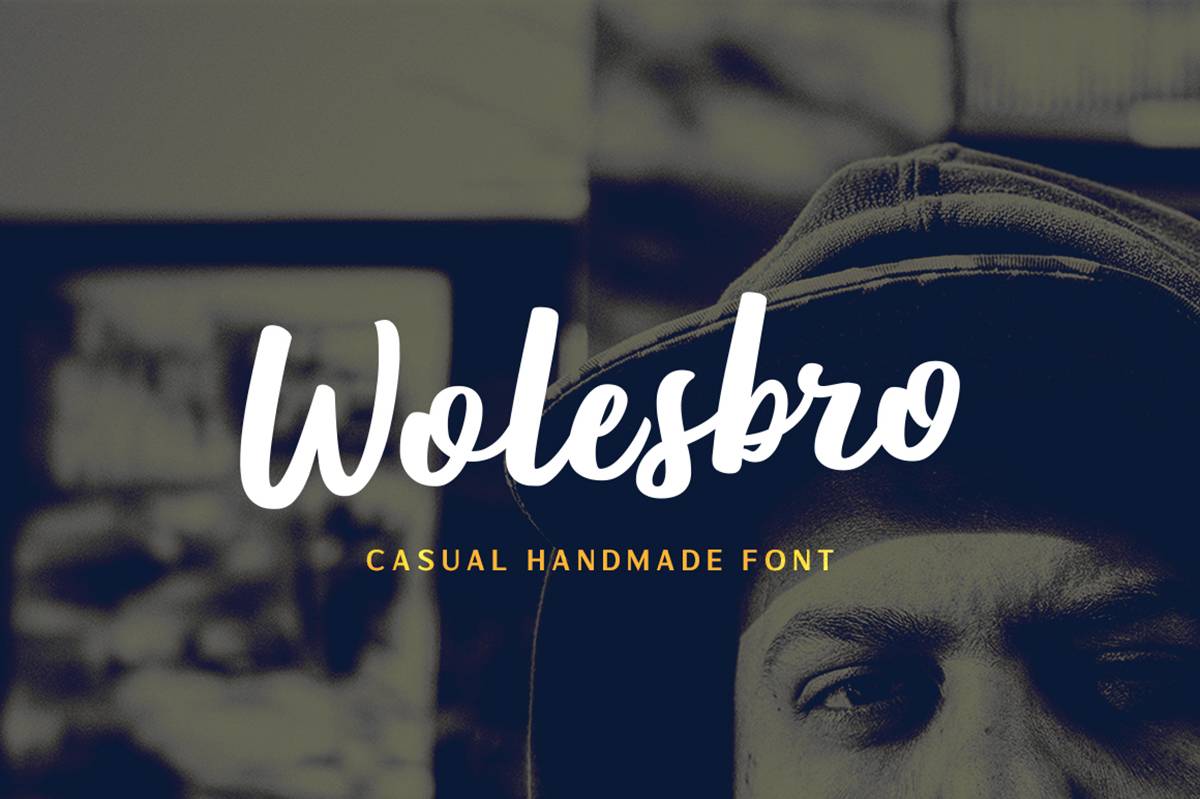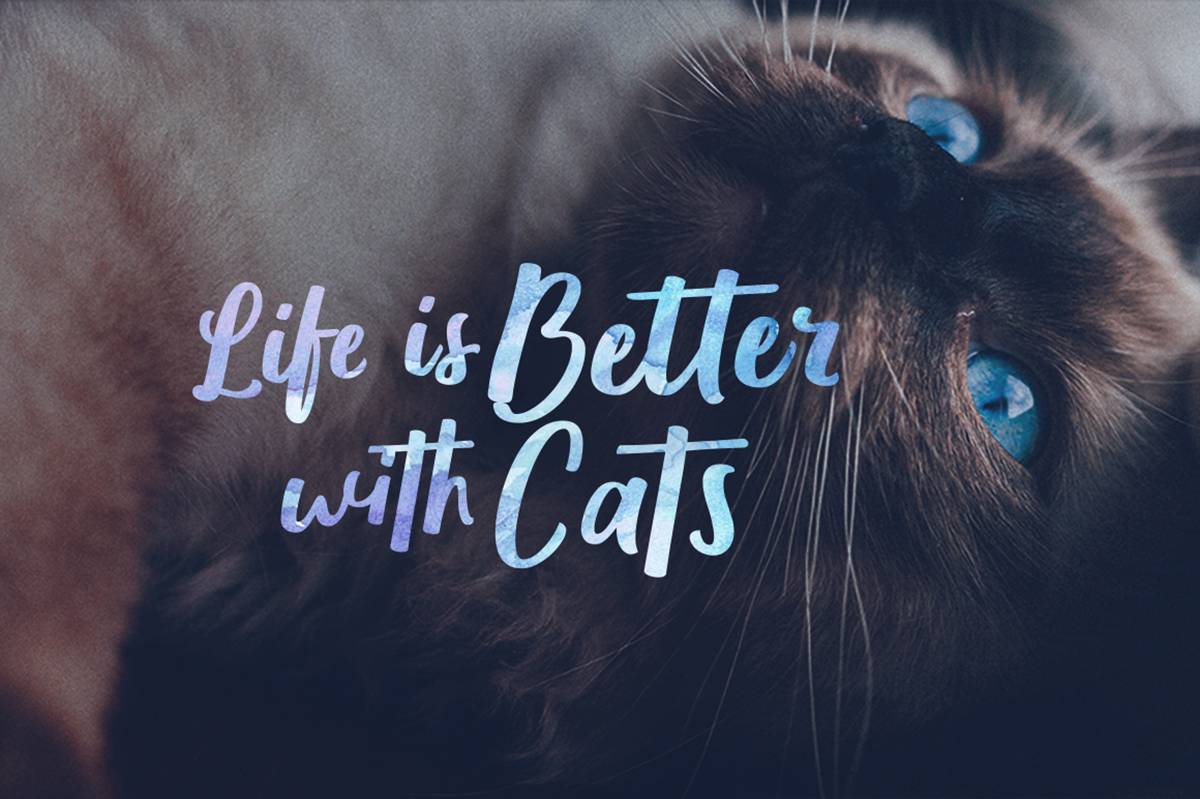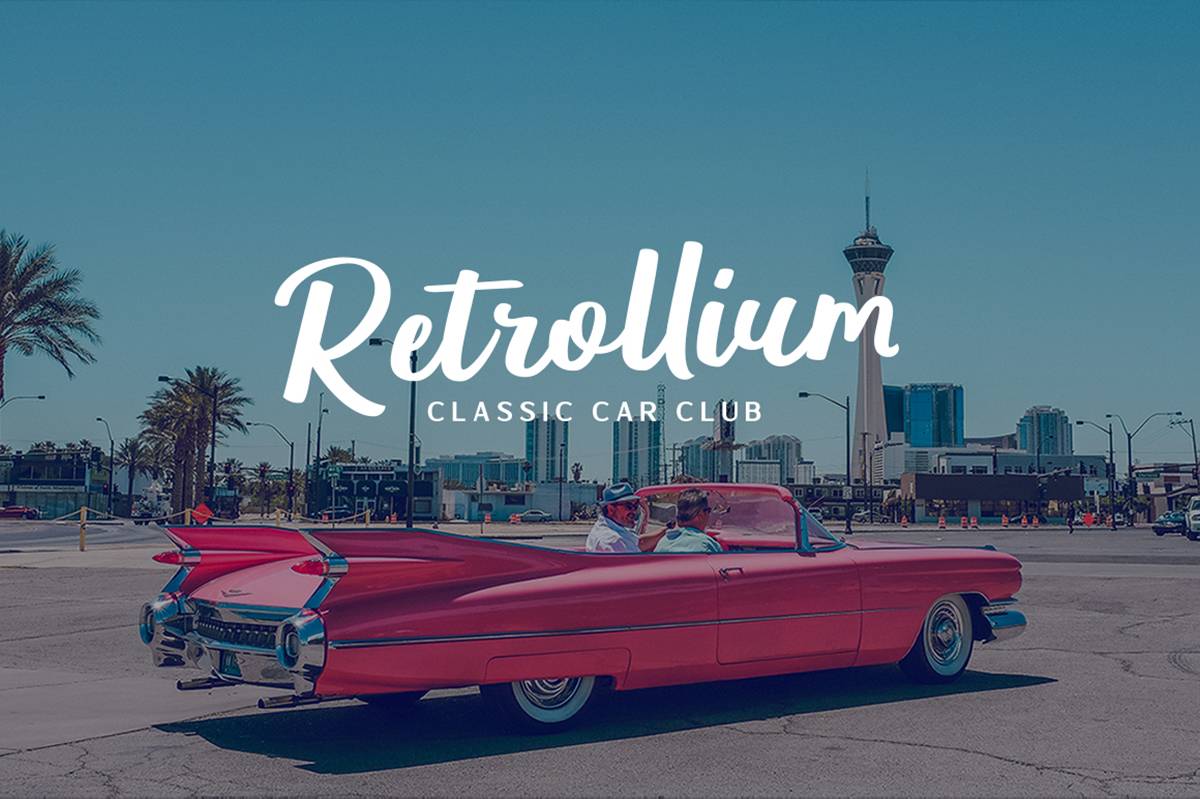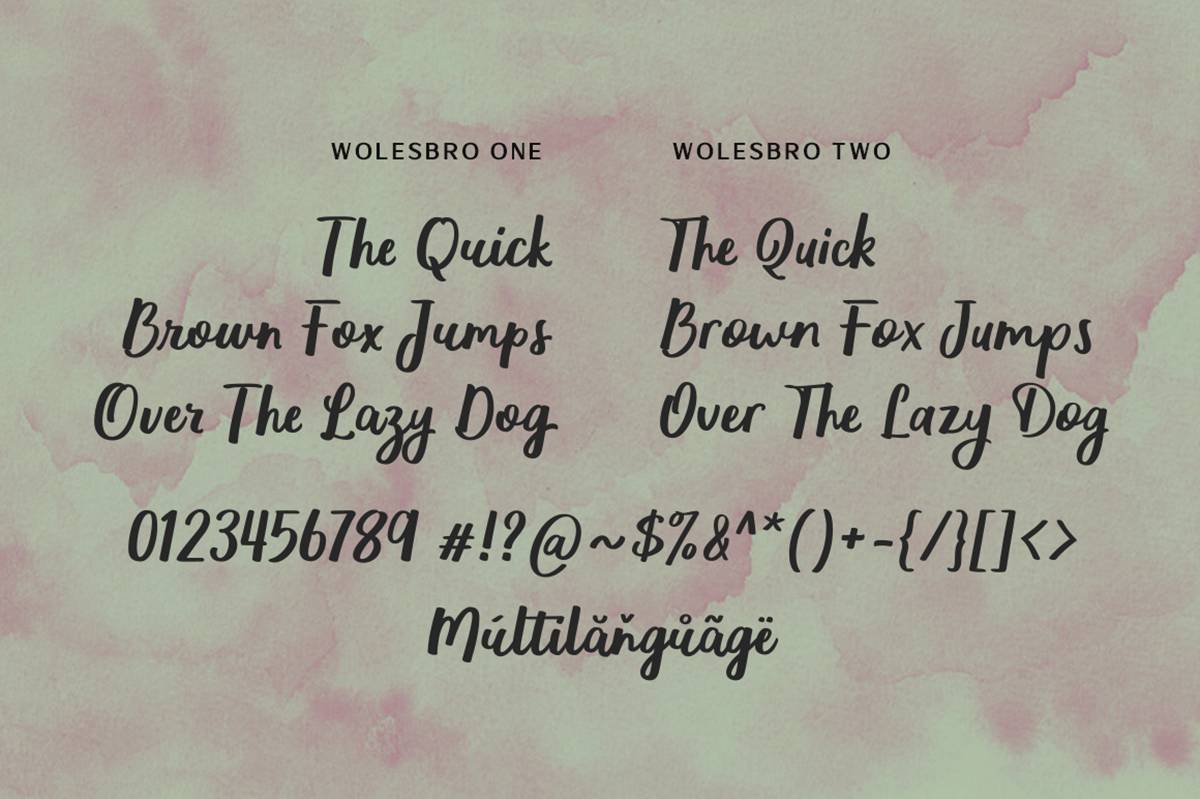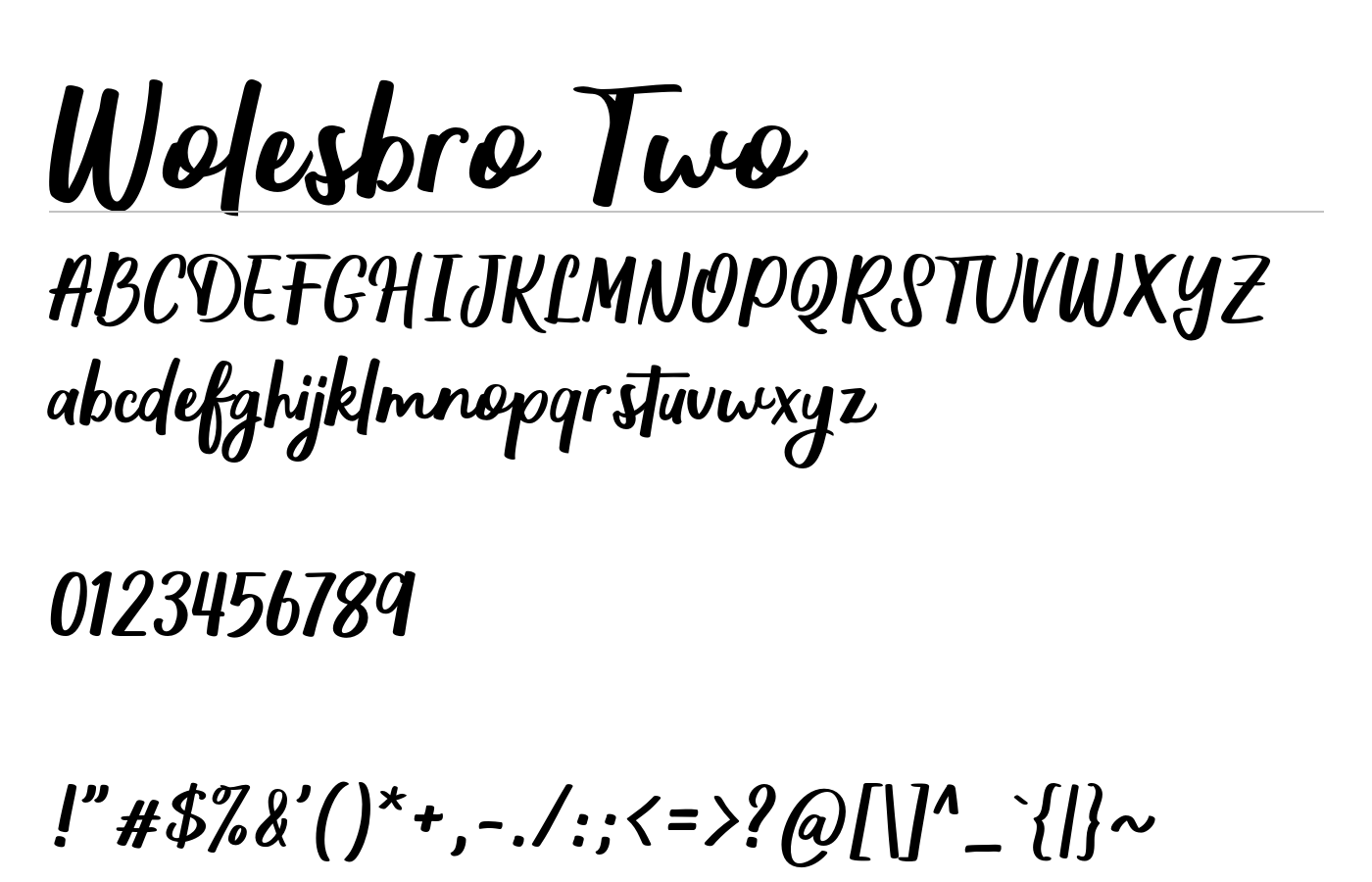
Wolesbro Two is a lively and modern script font featuring smooth, flowing strokes with a moderate contrast and a slightly condensed width. Its playful yet elegant style, with unique uppercase letterforms and a natural handwritten feel, makes it ideal for creative branding, invitations, and eye-catching headlines where a personal and approachable touch is desired.
Wolesbro Font
About Wolesbro Font
| Font family | Wolesbro Font |
| Designer | Arwan Sutanto |